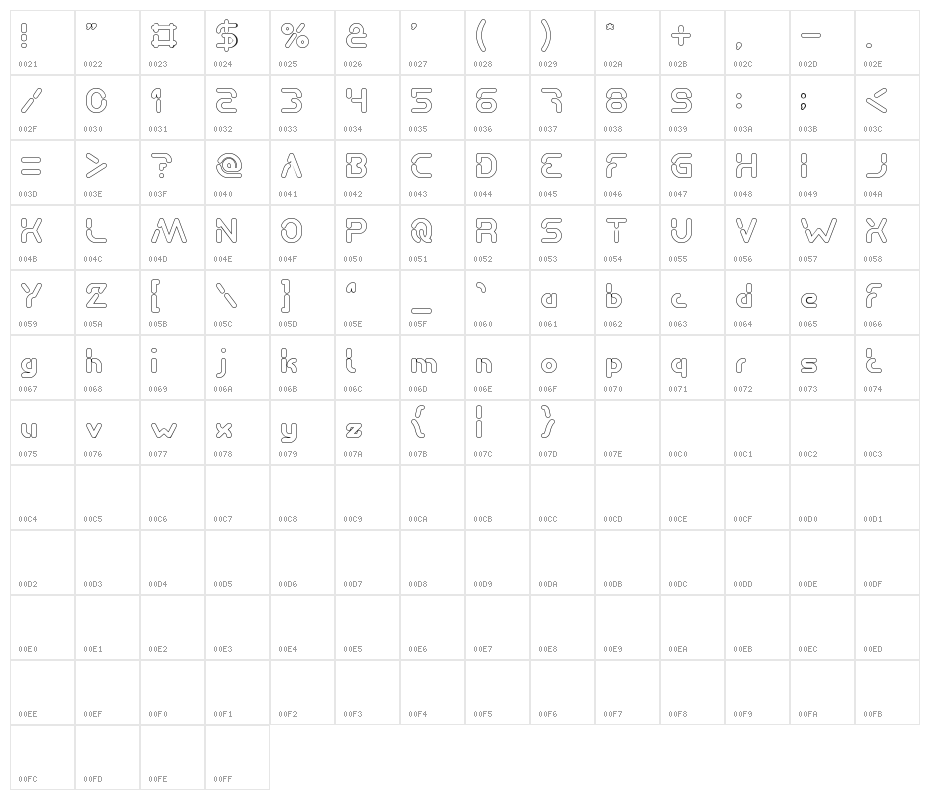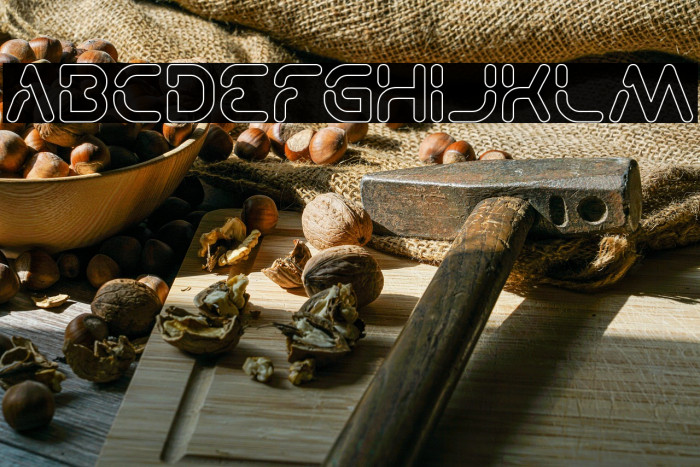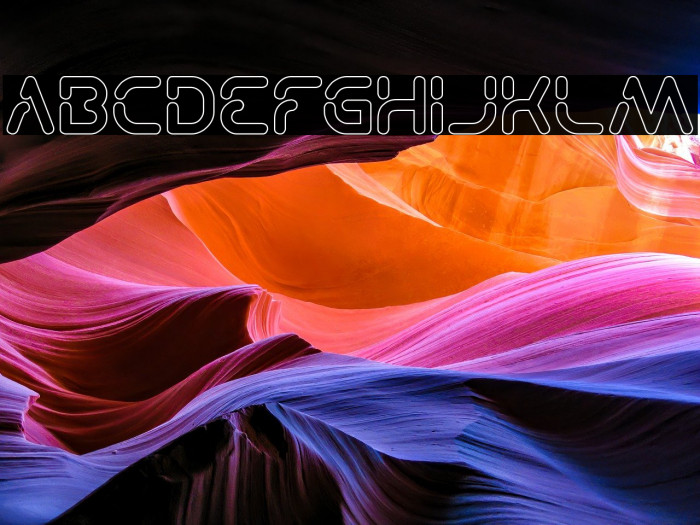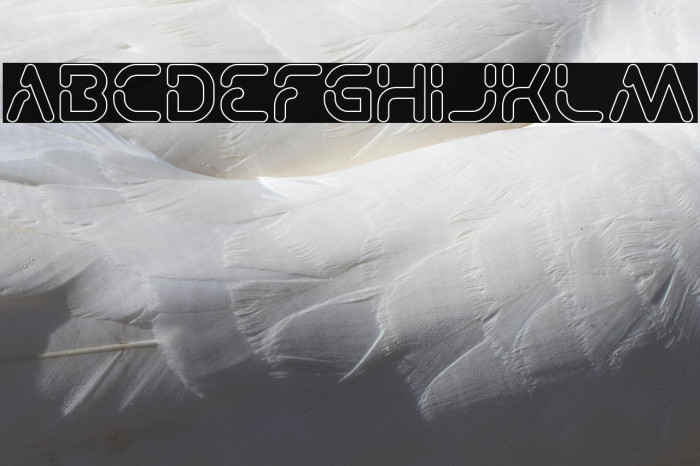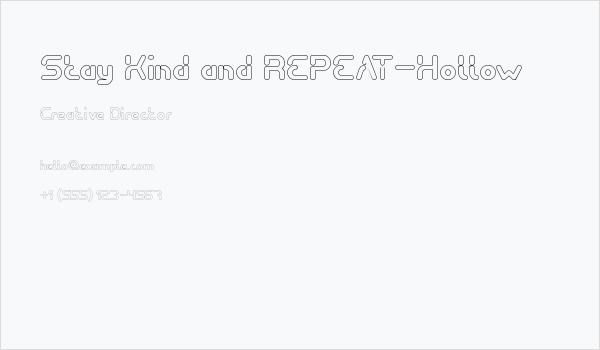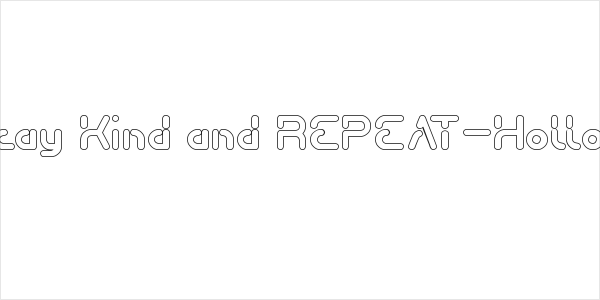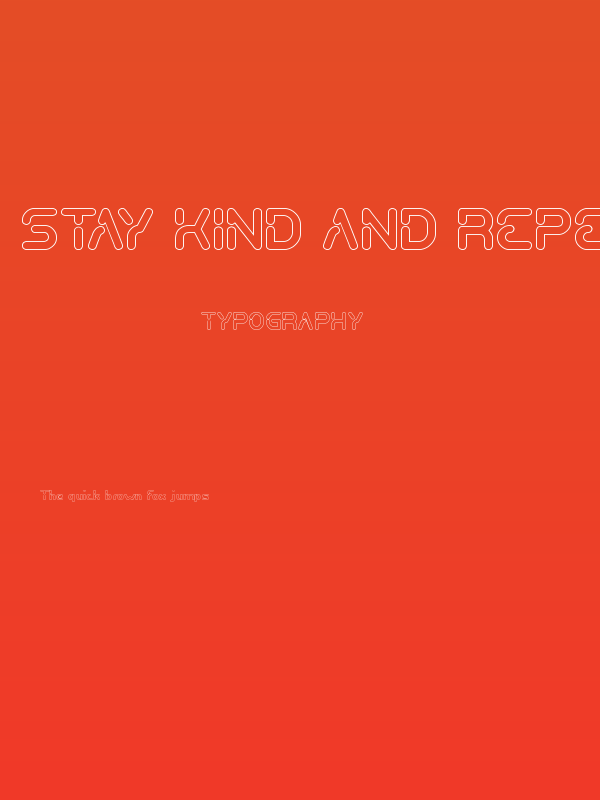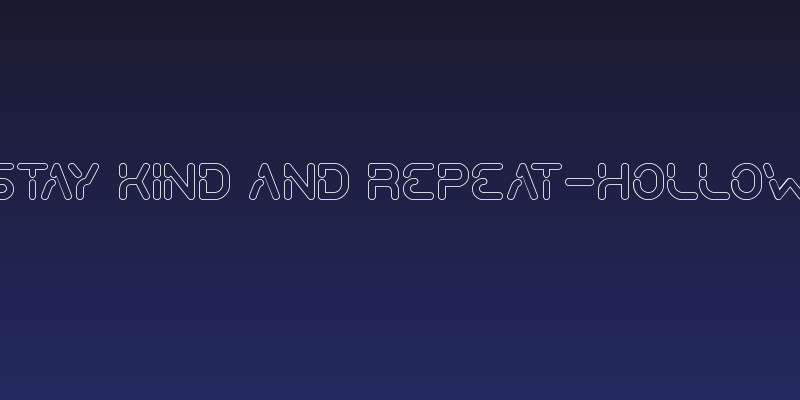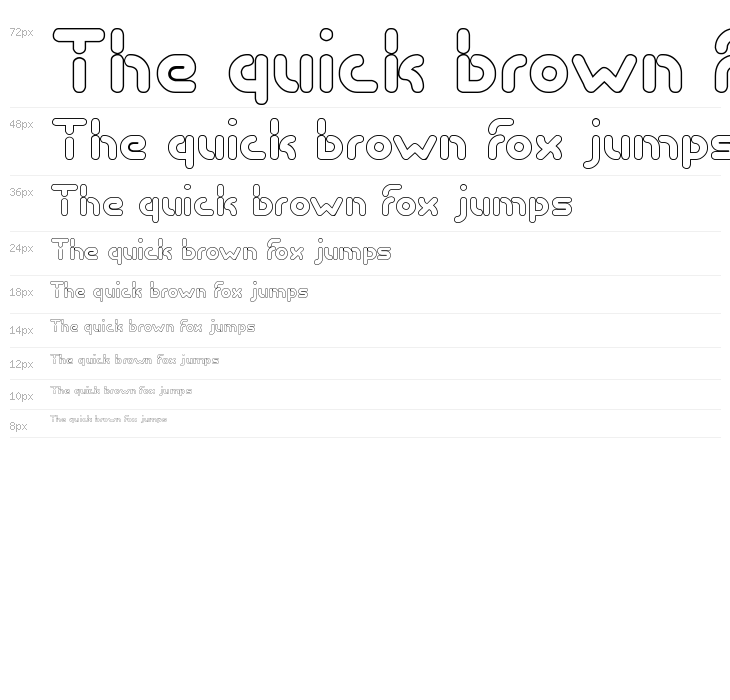
Stay Kind and REPEAT-Hollow Font
Stay Kind and REPEAT-Hollow Description
This font features a hollow, outlined design with a modern and futuristic aesthetic. The characters are composed of smooth, rounded lines that create a sense of openness and space. The uppercase and lowercase letters maintain a consistent style, with a geometric influence that is both playful and structured. The numerals and special characters follow the same design principles, ensuring uniformity across all glyphs. This font's unique hollow effect makes it stand out, offering a visually striking appearance that is ideal for creative and bold design projects.
Proposed ProjectsIdeal for futuristic branding, tech-related designs, posters, and digital media projects that require a bold and unique visual impact.